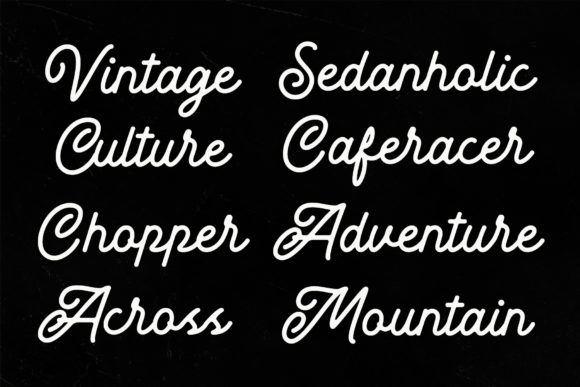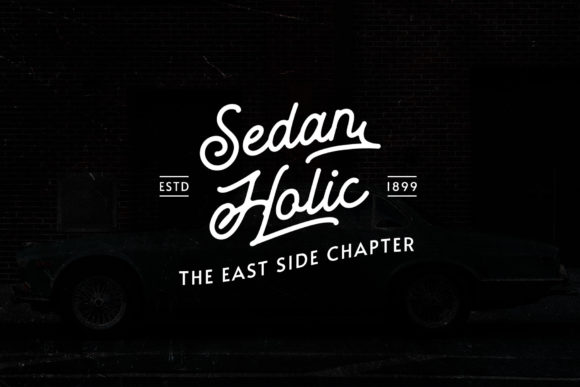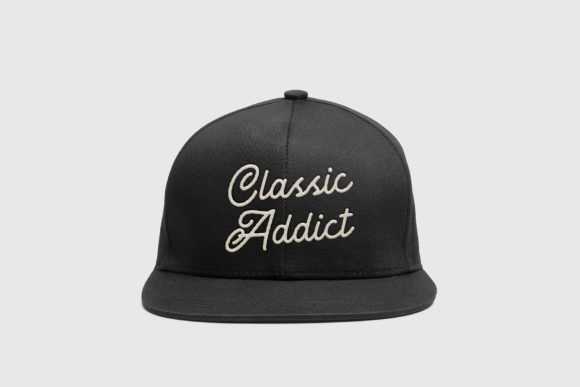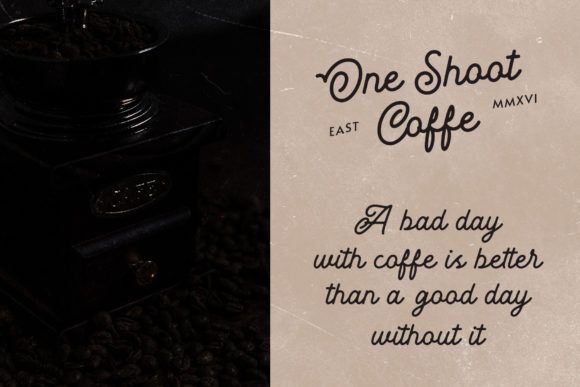
About Van Helsing Font
Van Helsing is a beautiful, well balanced and vintage styled script font. It is defined by smooth curves and is perfect for fashion branding or editorial designs. Add it confidently to your projects, and you will love the results.Â